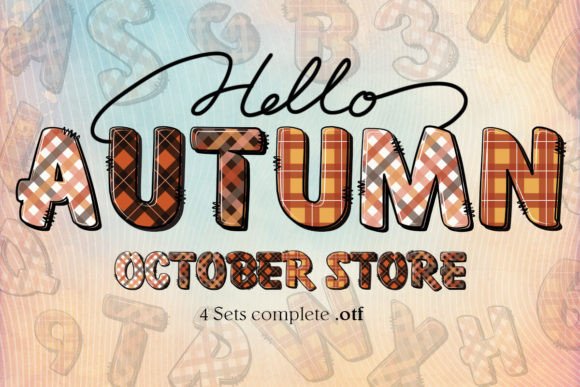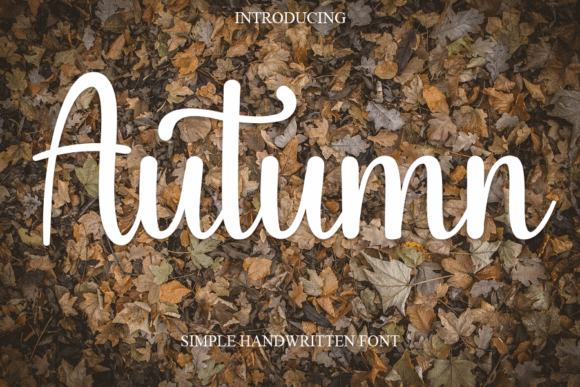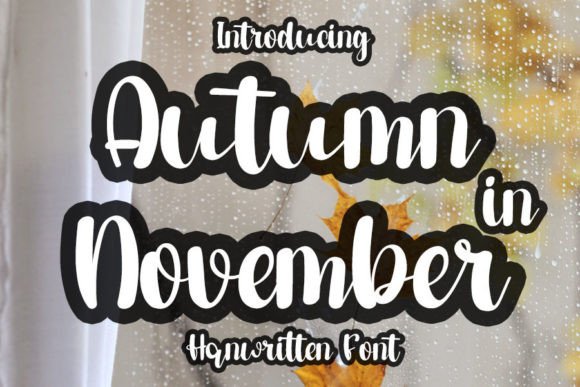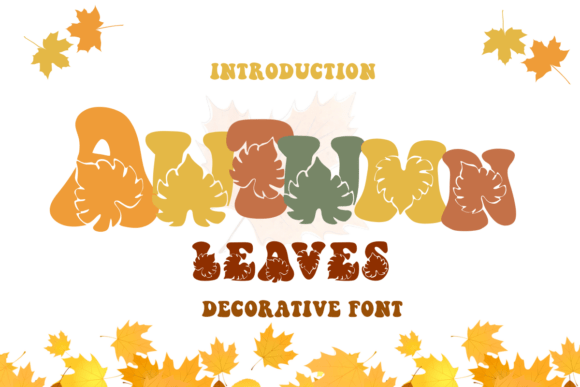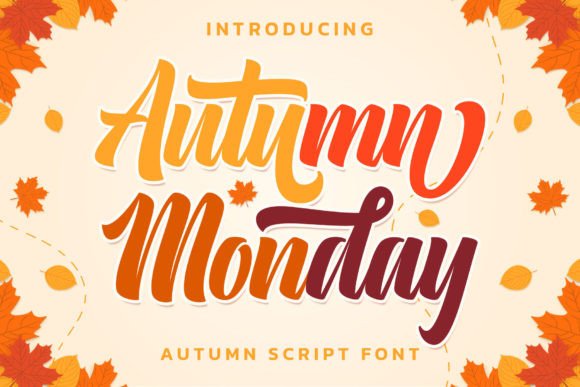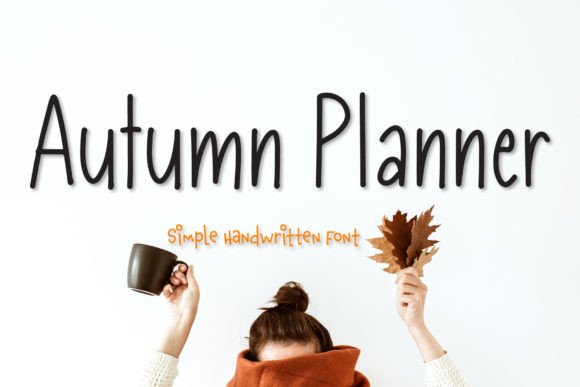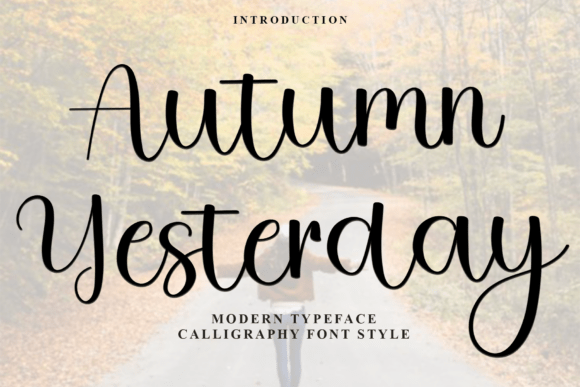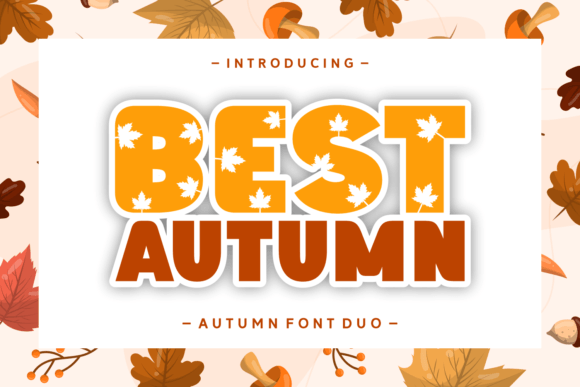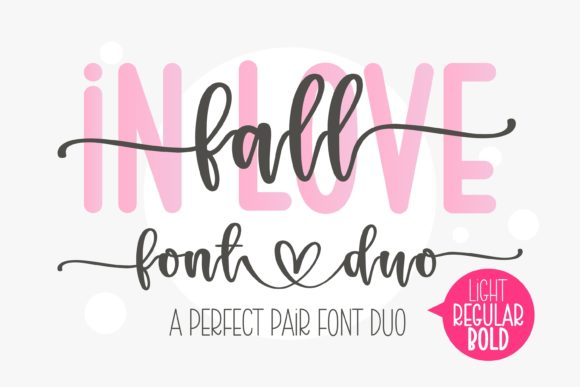
Autumn Fonts (Fall): Cozy, Rustic & Harvest-Ready
Autumn Fonts bring warm, nostalgic character to fall posters, farmers’ market signs, Thanksgiving menus and cozy invitation suites. Below you’ll find pairing ideas, warm color recipes, cutting-friendly picks and quick searches to grab the exact look you need for printables and Cricut/Silhouette projects. (Also called Fall Fonts.)
Autumn (Fall) fonts banner with centered maple leaf and pumpkin, warm brown–pumpkin palette, perfectly symmetric layout.
What Makes a Great Autumn (Fall) Font?
• Rustic warmth: slab or wood-type serifs, hand-drawn displays, soft ink-bleed textures.
• Harvest motifs: pumpkin/leaf accents, ribbon swashes, simple ornaments for headings.
• Down-to-earth forms: moderate contrast, rounded corners, generous counters for legibility.
• Cutting-machine friendly: solid fills and layered/offset options that weed quickly.
Font Pairing Recipes
Farmers’ Market Poster
Headline: Wood-type display
Subhead: Slab serif (small caps)
Body: Grotesque sans (tight leading)
Why: Heritage impact + clear details for times and locations.
Thanksgiving Menu
Section titles: Rustic serif
Items: Humanist serif/sans
Price dots: Period leaders •••
Why: Cozy hierarchy with excellent small-size legibility.
Fall Party Invite
Names: Harvest brush script
Details: Clean serif
Accents: Leaf icon/ornament
Why: Expressive names balanced by tidy details.
Pumpkin Patch Signage
Main: Stencil display
Secondary: Rounded sans
Why: High visibility from afar and easy weeding on vinyl.
Autumn Color & Layout Tips
• Warm palette: #D97706 pumpkin, #92400E brown, #D4A373 wheat, #6B7280 slate. Neutral anchor: #1F2937.
• Texture with care: subtle grain, kraft paper or plaid bars; keep body text on clean backgrounds.
• Layered titles: base + inline + soft shadow; avoid hairline inlines below ~1.5–2 mm for cutting.
• Spacing: tighten chunky displays (-2% to -8% tracking), add generous line-height for stacked headlines.
Project Ideas (Print & Cutting)
• Invitations & place cards: harvest scripts + clean serif; test body at 10.5–12 pt.
• Market banners & yard signs: stencil/wood-type displays on high-contrast panels.
• Recipe cards & menus: rustic serif titles with simple dividers and period leaders.
• Gift tags & stickers: handwritten fall fonts; minimum height 20–24 mm for easy weeding.
• Photo overlays: pumpkin display with soft shadow over warm gradient photos.
Cutting-Friendly Settings
• Prefer solid fills and clean paths; expand appearance before exporting SVGs.
• For small scripts, simplify swashes and join nodes; add offset/outline 0.8–1.6 mm for strength.
• Stencil letters: verify bridges ≥1.6 mm so counters don’t fall out.
Autumn (Fall) Fonts FAQ
What font styles feel most “autumn”?
Rustic slab/wood-type serifs, pumpkin/leaf displays, harvest brush scripts and casual handwritten styles.
How do I pair decorative fall fonts without losing readability?
Use the decorative face for headlines and a neutral serif/sans for details; body 10.5–12 pt with comfortable line-height.
Any quick autumn color recipes?
Pumpkin #D97706 + Wheat #D4A373 + Slate #6B7280; or Brown #92400E + Cream + Charcoal #1F2937.
Which fonts are best for cutting machines?
Solid, layered displays and simple scripts with clean paths; avoid ultra-thin inlines at small sizes.